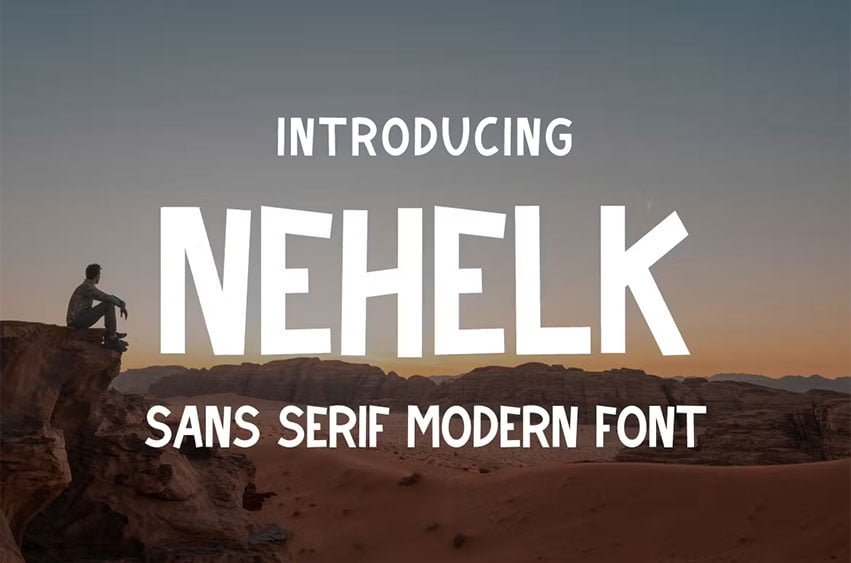
Nehelk Font Modern Sans Serif. Nehelk is a modern and simple font, best used as a display for headings, logos, branding, magazines, product packaging and invitations. Nehelk come with clean lines and smooth curves give any project an extra touch of class.